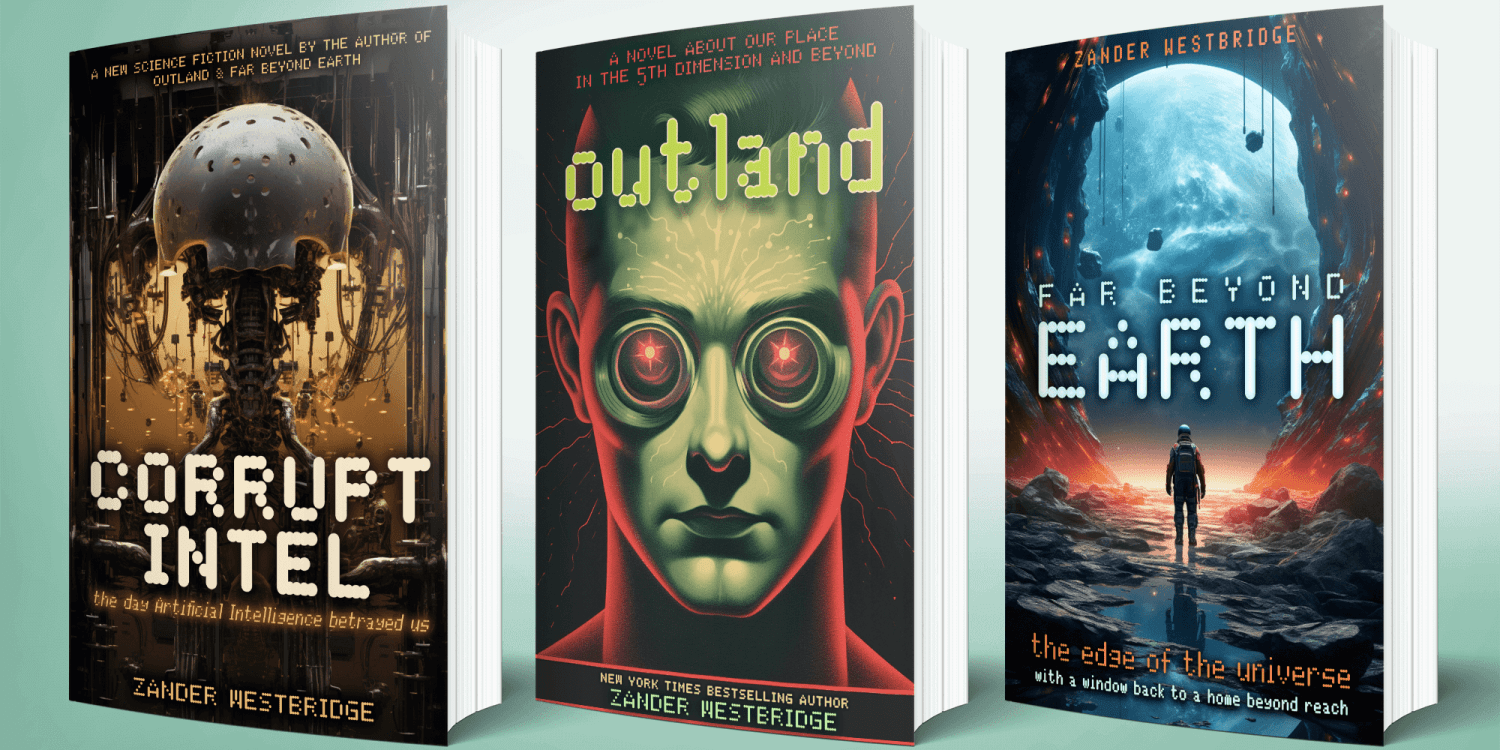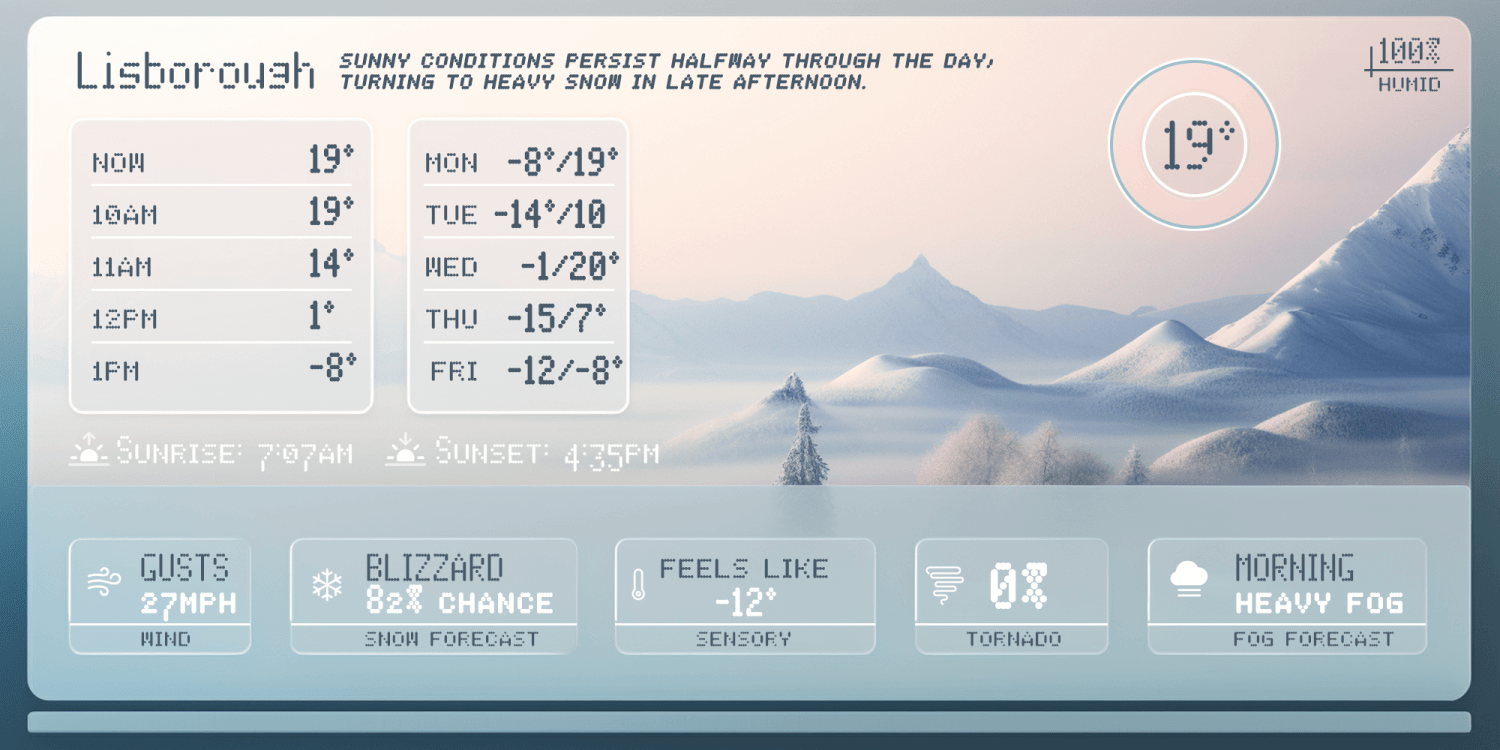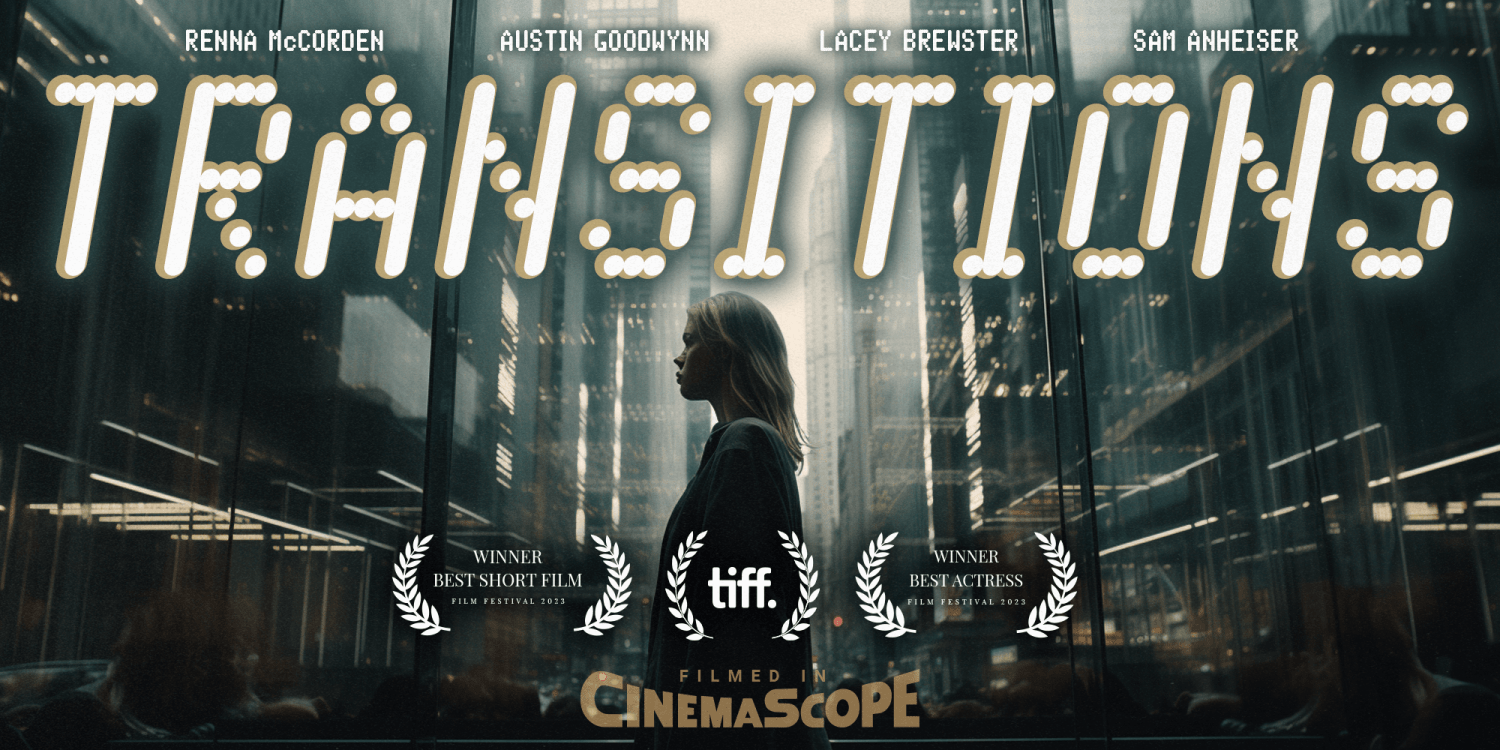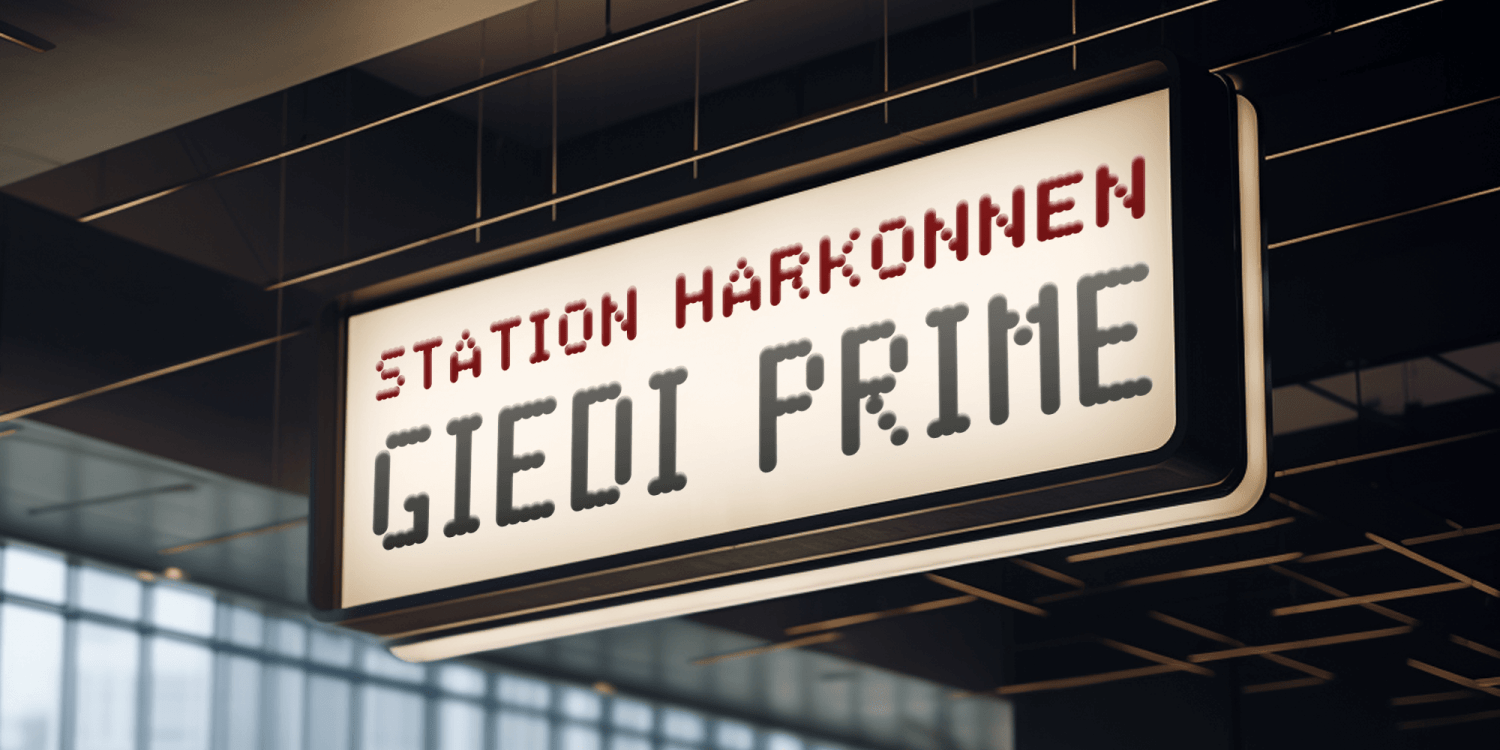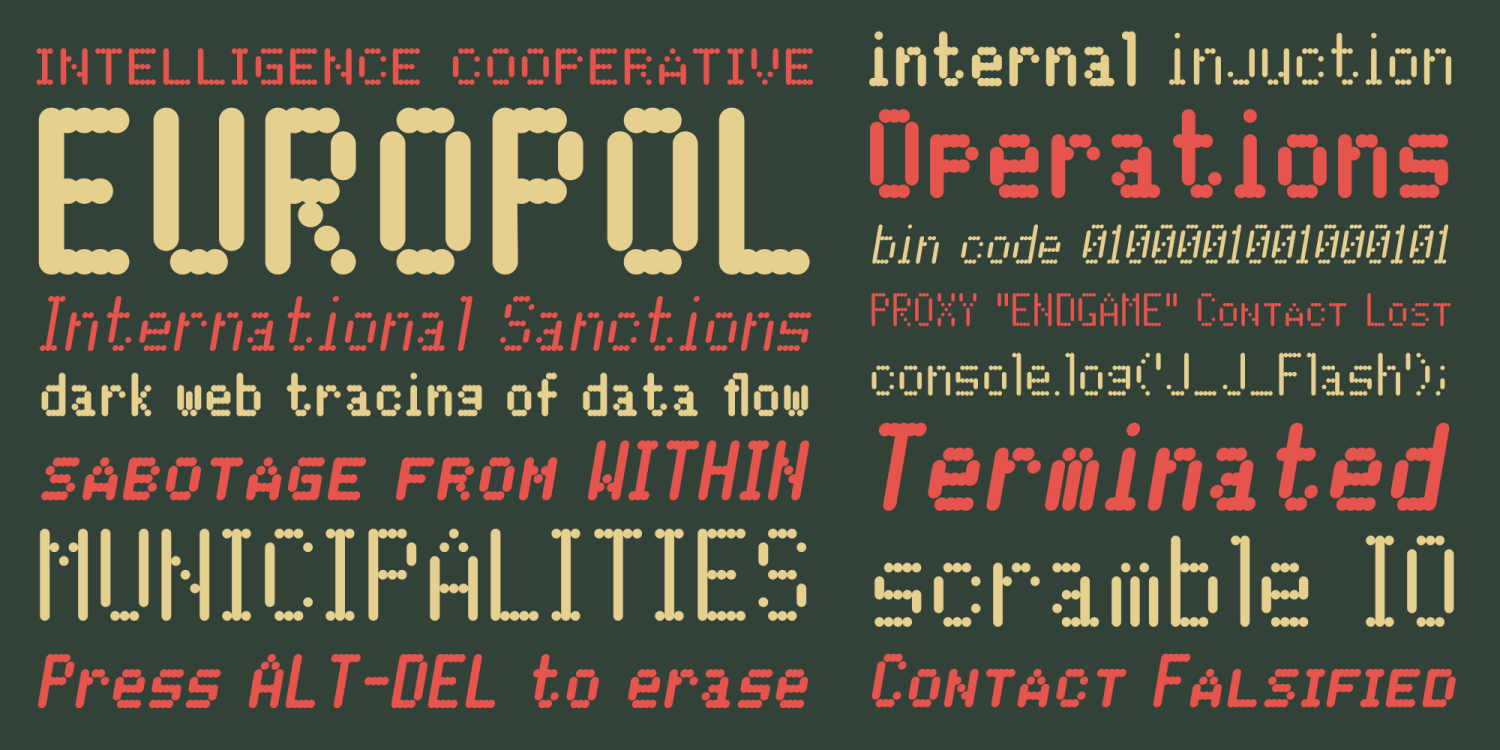
Data Error Vert AOE Pro
About Data Error Vert AOE Pro
The Data Error Vert AOE Pro family is a spinoff of my Data Error AOE Pro family. Quite simply, it takes on a slightly different feel than the original pin matrix grid by stroking across all vertical glyph lines. The vertical lines break up the readability…